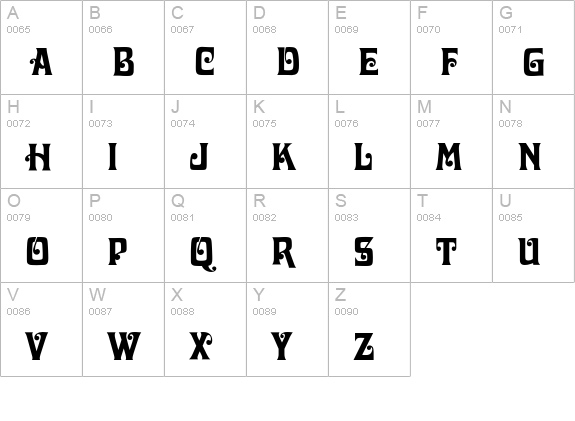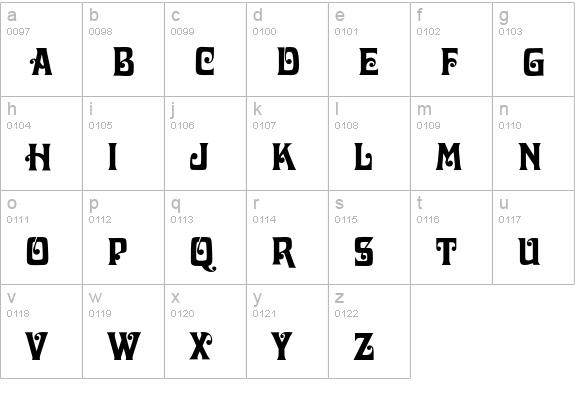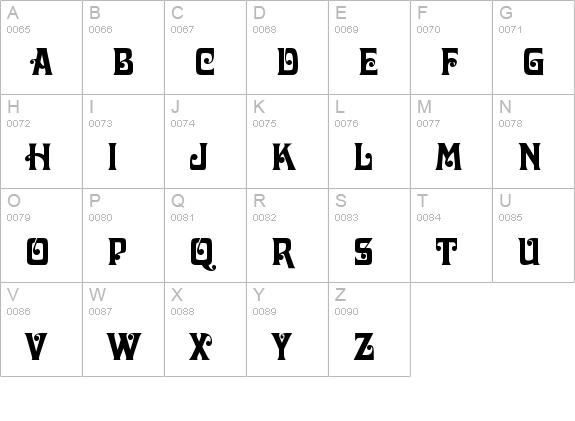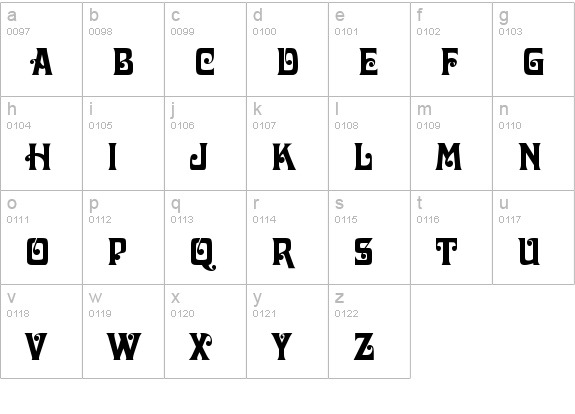
DavidaEF Font Details
DavidaEF font is a timeless and elegant typeface that exudes sophistication and charm. With its classic serifs and graceful curves, this font is perfect for adding a touch of refinement to any design project. Whether you're creating invitations, packaging, or branding materials, DavidaEF will bring a sense of luxury and class to your work. The best part? DavidaEF font is available for free download at FontsMarket.com. This means that you can easily access this beautiful font without any cost, making it a valuable addition to your font collection. Don't miss out on the opportunity to elevate your designs with DavidaEF's exquisite style and versatility. Download it today and let your creativity shine!